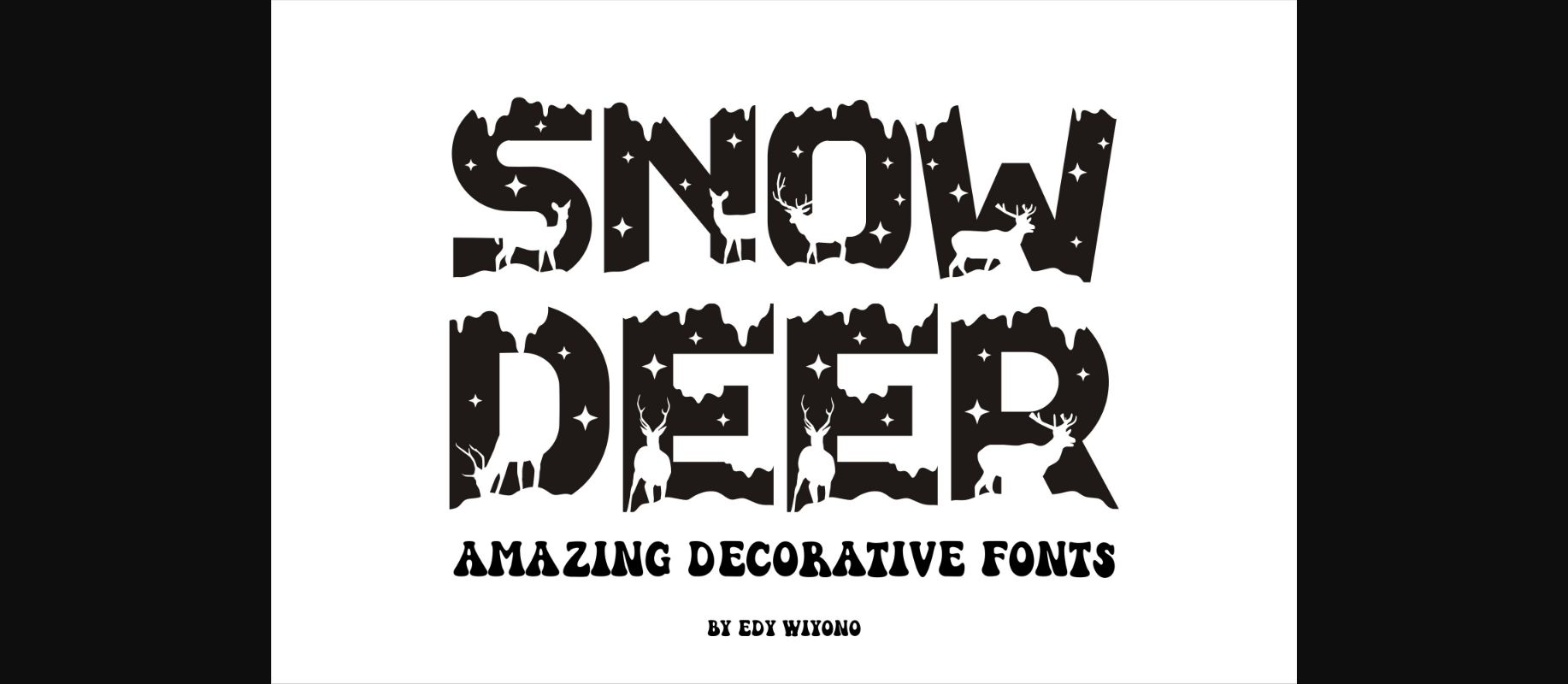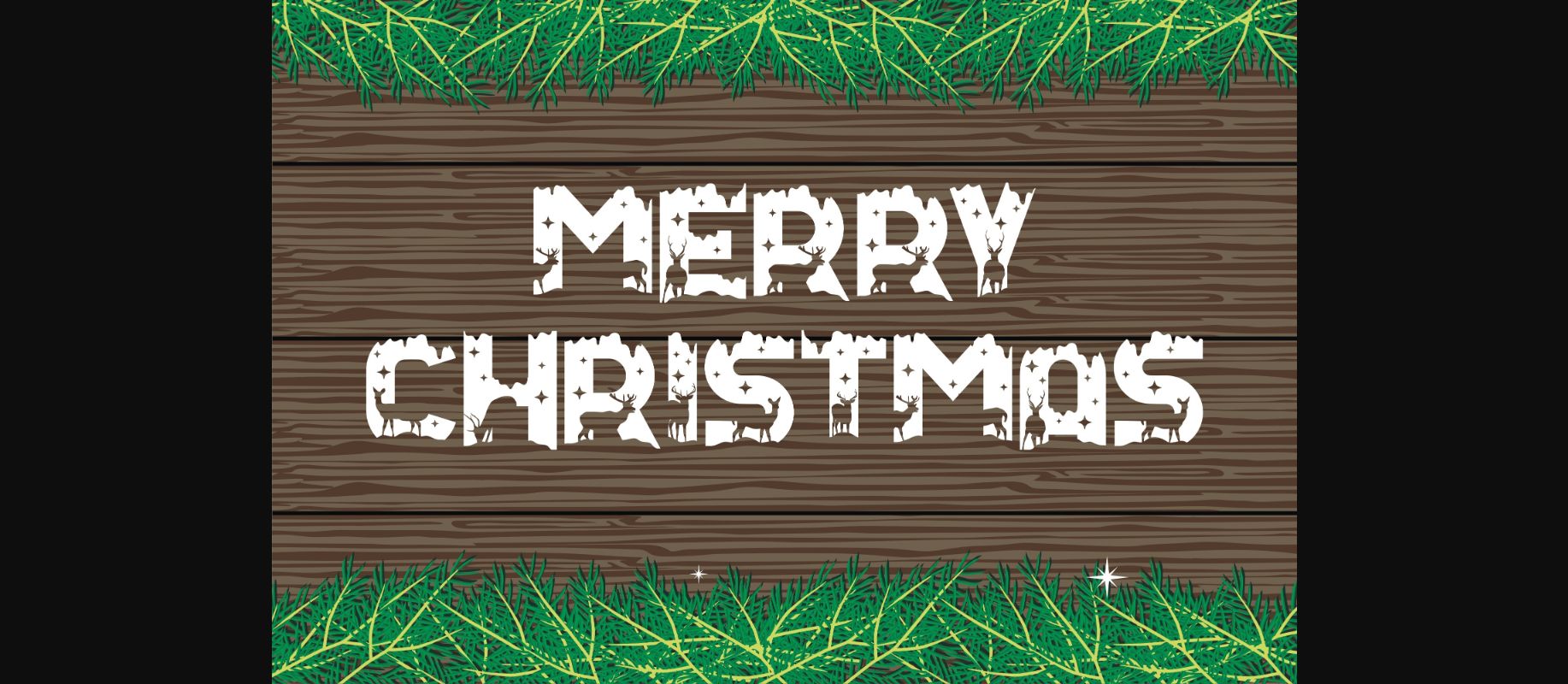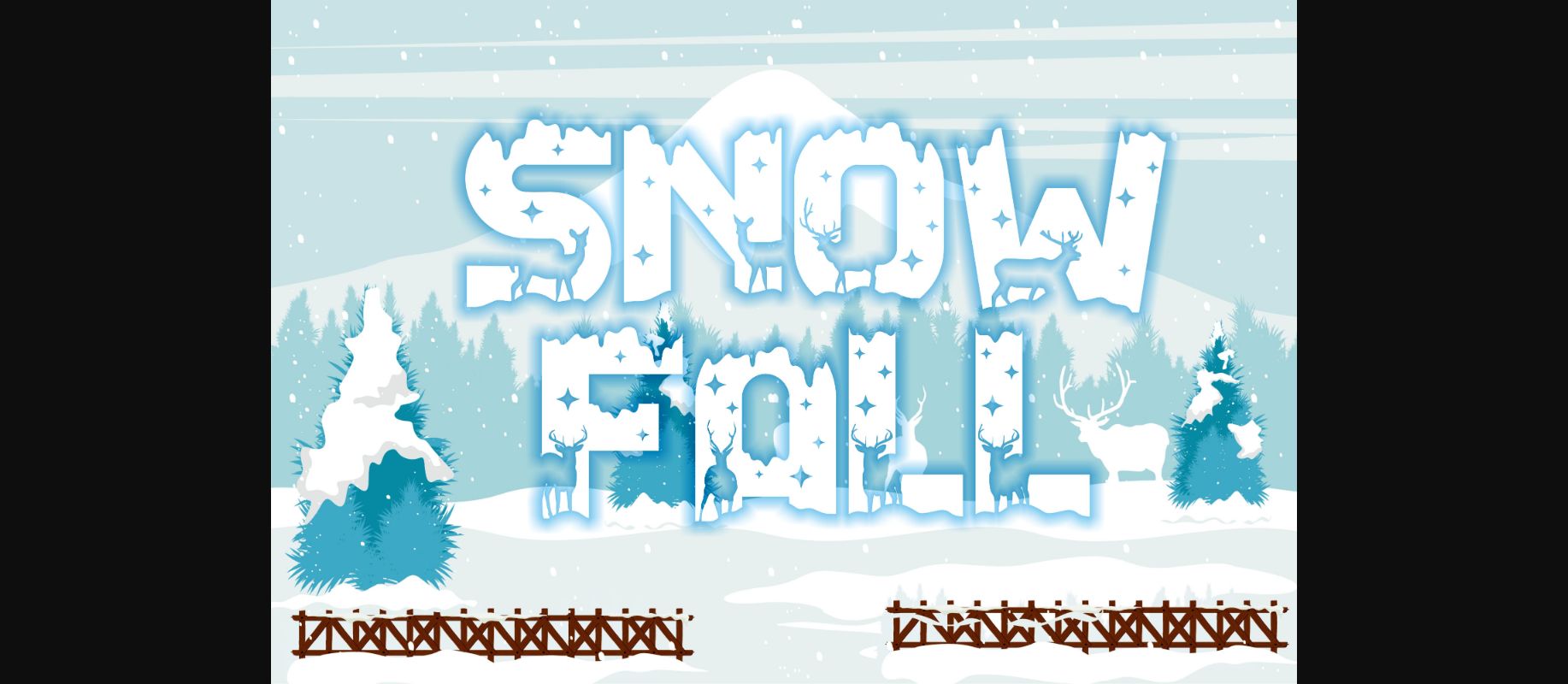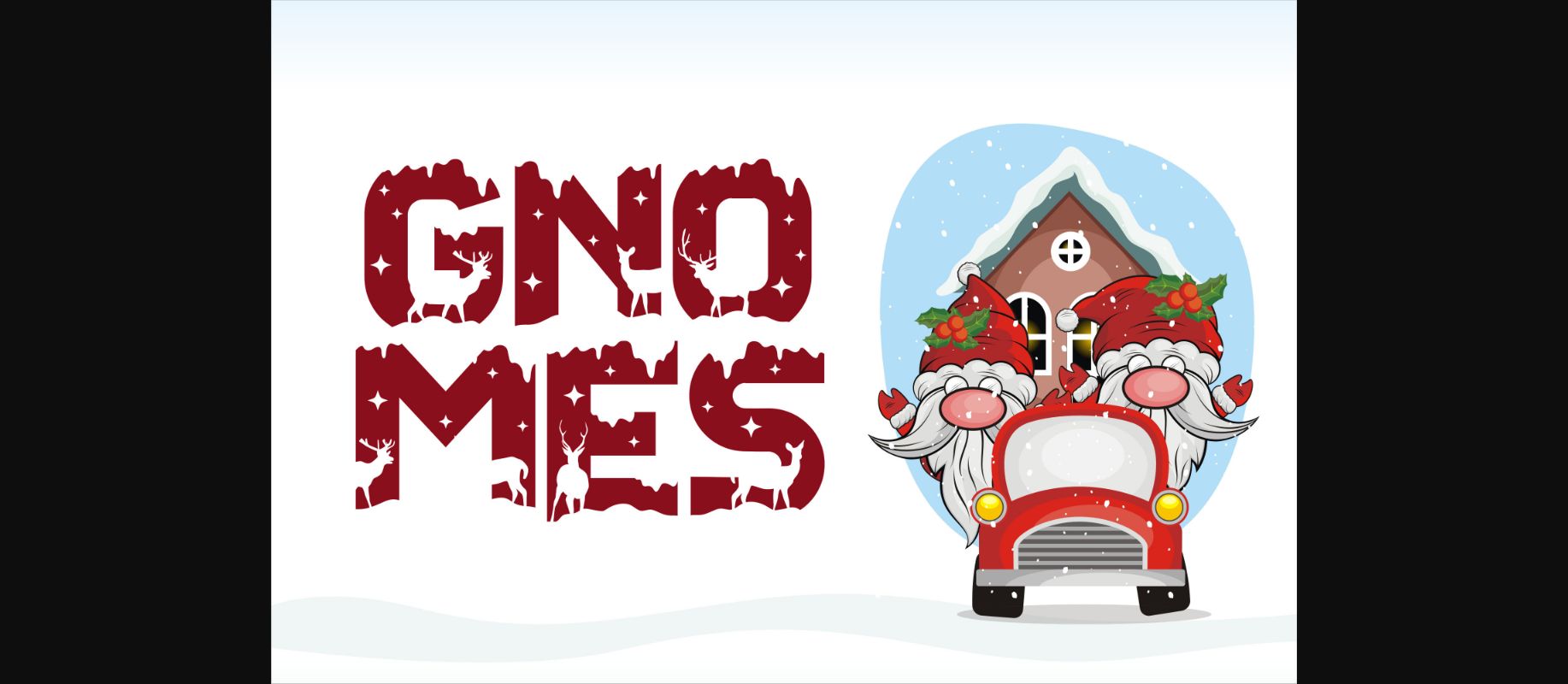
Snow Deer is a decoration font with silhouettes of deer and snow, this font is very suitable for Christmas and new year theme design. No matter the topic, this font will be an incredible asset to your fonts’ library, as it has the potential to elevate any creation.